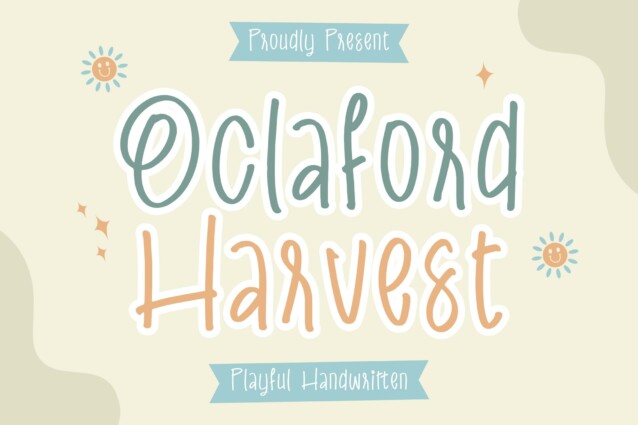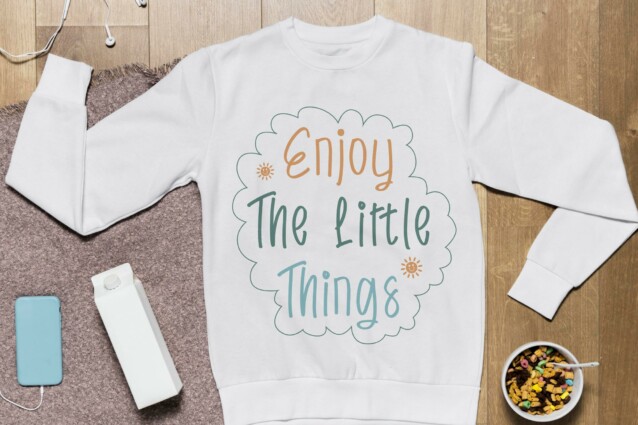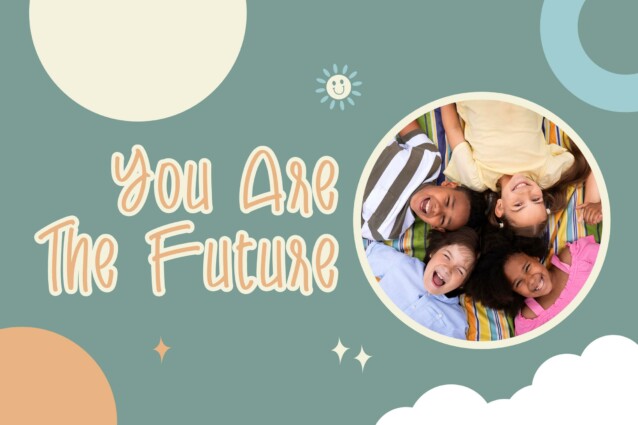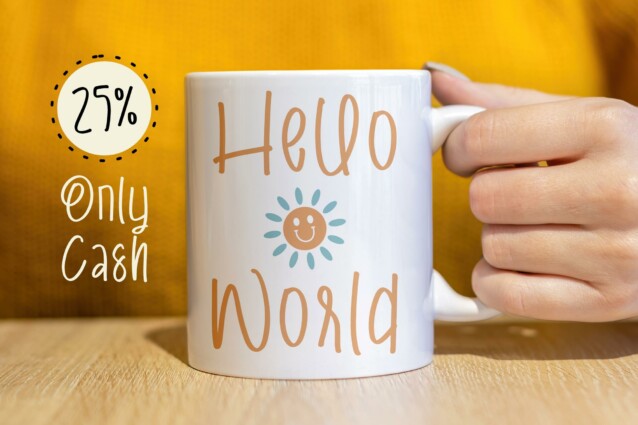
Oclaford Harvest Font
Oclaford Harvest Font is a playful handwritten font, suitable for any projects such as: logos, branding projects, homeware designs, product packaging, mugs, quotes, posters, shopping bags, t-shirts, book covers, name card, invitation cards, greeting cards, label, photography, watermark, special events, and all your other lovely projects that need a beautiful script taste.